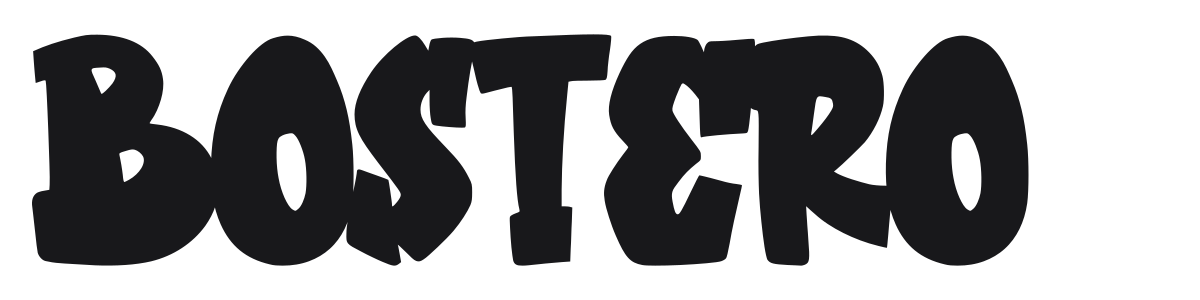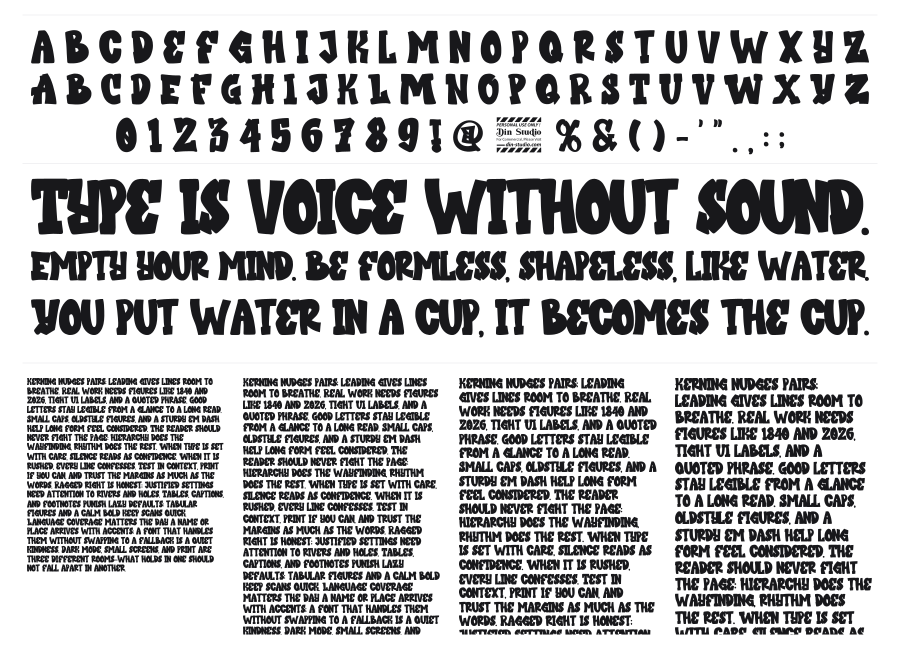
Bostero
Bostero is a heavy bubble graffiti font inspired by classic urban tagging culture. Its thick, rounded strokes and irregular outlines capture the feel of hand-sprayed lettering at large scale. Strong at headlines, posters, t-shirt graphics, and any project that needs street credibility.